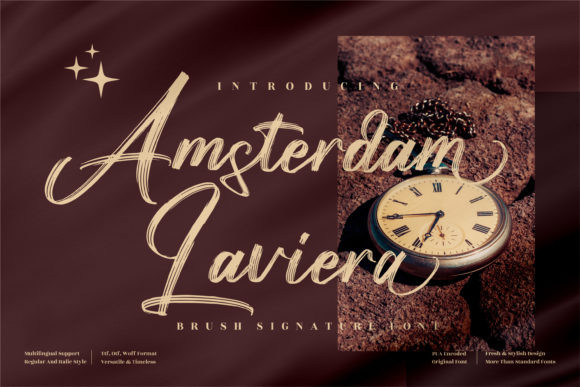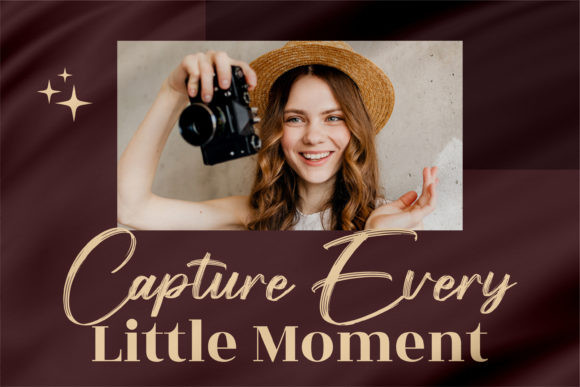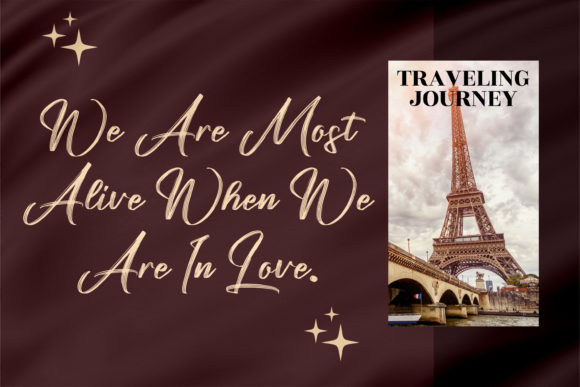
Amsterdam Laviera Font
Amsterdam Laviera is a smooth and brushed script font. It has beautiful and well balanced characters and as a result, it matches a wide pool of designs.